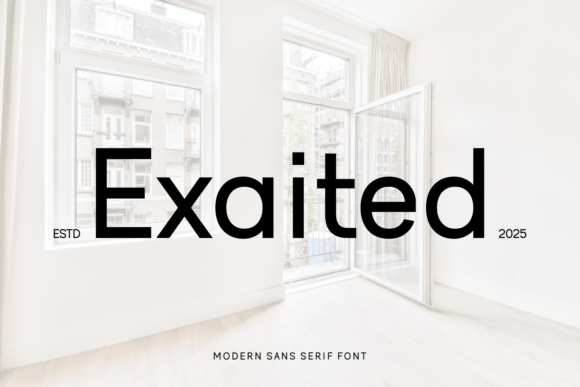
Exaited Font: Elevate Your Design with Sleek Modernity
Exaited is a sleek modern sans serif font that embodies minimalism and clarity. With its clean lines, generous spacing, and subtle geometric structure, this font is perfect for creating polished branding, elegant editorial layouts, and modern web designs. Whether youβre aiming for a refined corporate identity or a sophisticated creative look, Exaited delivers timeless professionalism with effortless style.
The Essence of Exaited Font
Exaited font is a masterpiece of modern typography, designed to convey a sense of sophistication and elegance. Its sleek lines and minimalist aesthetic make it an ideal choice for designers seeking to create a lasting impression. The font’s clean and uncluttered design ensures that your message is conveyed with clarity, making it perfect for a wide range of applications, from corporate branding to editorial design.
Key Features of Exaited Font
- Clean Lines: Exaited’s lines are precise and unadorned, giving the font a sense of modernity and sophistication.
- Generous Spacing: The font’s generous spacing ensures that each letter has ample room to breathe, making it easy to read and understand.
- Subtle Geometric Structure: Exaited’s geometric structure provides a sense of stability and balance, making it perfect for creating harmonious compositions.
- Minimalist Aesthetic: The font’s minimalist design ensures that your message is conveyed with clarity, without any distractions.
Applications of Exaited Font
Exaited font is versatile and can be used in a wide range of applications, including:
- Corporate Branding: Exaited’s sleek and modern design makes it perfect for creating refined corporate identities.
- Editorial Design: The font’s elegant and sophisticated aesthetic makes it ideal for creating elegant editorial layouts.
- Web Design: Exaited’s clean and minimalist design makes it perfect for creating modern web designs that are both visually appealing and easy to navigate.
Benefits of Using Exaited Font
Using Exaited font offers a range of benefits, including:
- Timeless Professionalism: Exaited’s sleek and modern design ensures that your brand or design project exudes timeless professionalism.
- Effortless Style: The font’s elegant and sophisticated aesthetic makes it easy to create designs that are both stylish and effective.
- Improved Readability: Exaited’s clean and uncluttered design ensures that your message is conveyed with clarity, making it easy to read and understand.
Exaited font is a sleek modern sans serif font that embodies minimalism and clarity. With its clean lines, generous spacing, and subtle geometric structure, this font is perfect for creating polished branding, elegant editorial layouts, and modern web designs. Whether youβre aiming for a refined corporate identity or a sophisticated creative look, Exaited delivers timeless professionalism with effortless style.